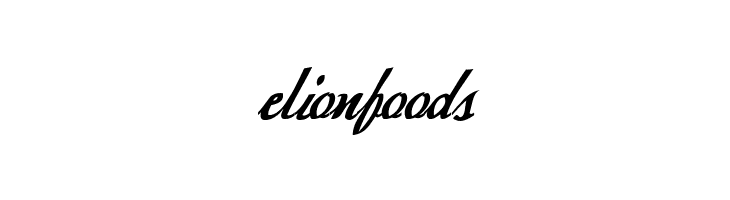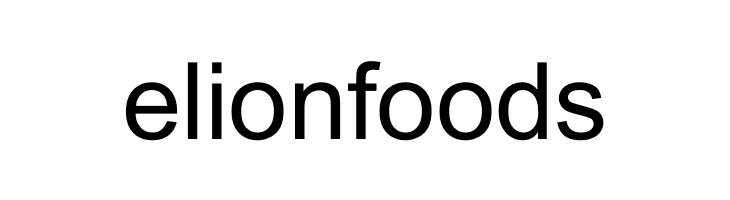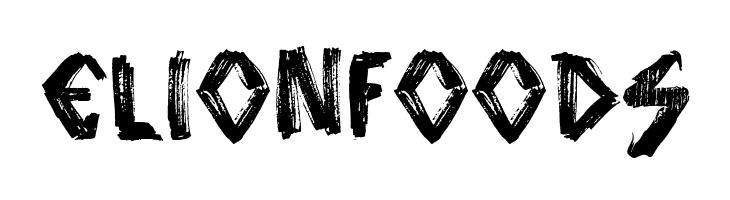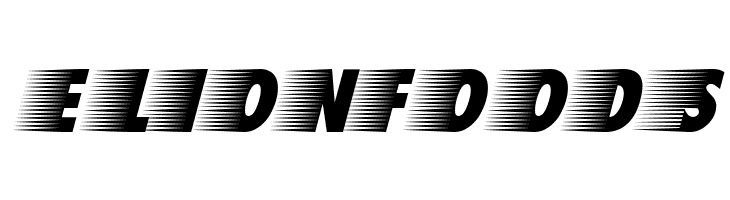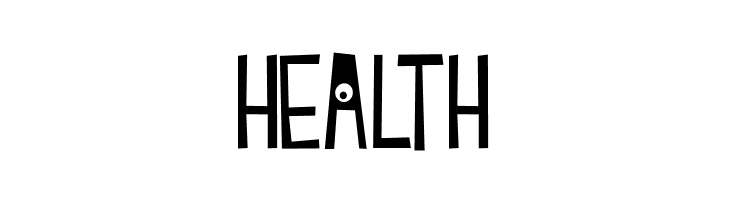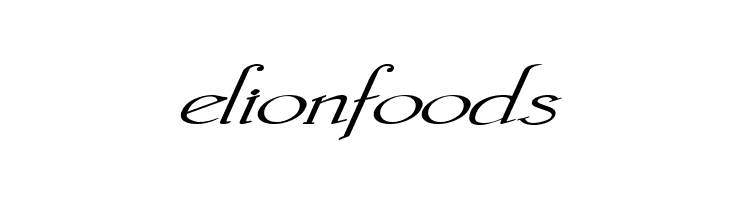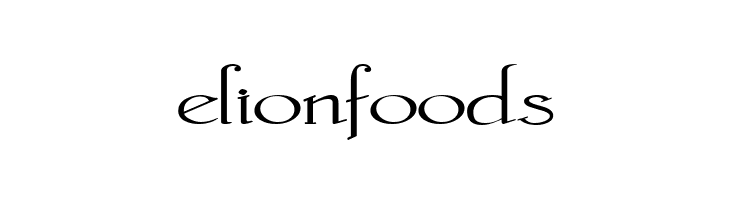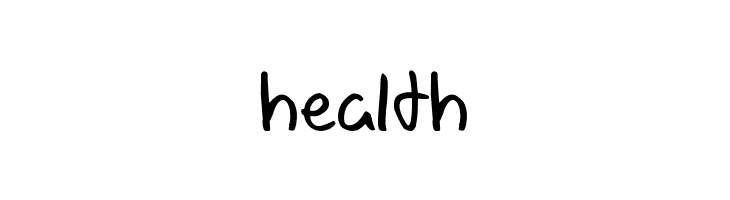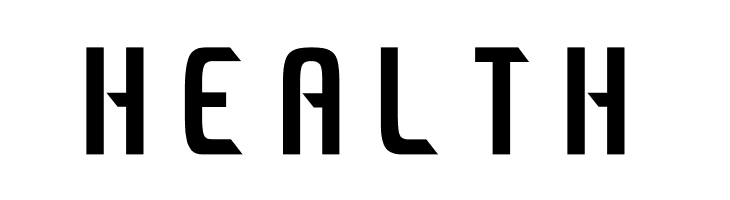
Museo-700 Font
A modern, bold font with a clean and professional appearance.
Jellyka Castle's Queen Font
An ornate, whimsical font with intricate swirls and flourishes.
Sony Sketch EF Font
A modern, geometric sans-serif font with clean lines and a slightly condensed style.
Jellyka, End_less Voyage Font
An ornate and decorative script font with elaborate swirls and curves.
Alvi Nastaleeq Font
A clean, modern sans-serif font with consistent stroke width and balanced spacing.
BreezedCaps BoldOblique Font
A bold, oblique font with a dynamic striped design.
Universe Font
A modern, geometric font with a futuristic and precise design.
green piloww Font
A playful, sketch-like font with a hand-drawn appearance and textured strokes.
FFF Tusj Bold Font
A bold, hand-drawn font with a sketch-like, artistic style.
Theano Didot Regular Font
An elegant serif font with high contrast and refined serifs.
Quicksand Light Regular Font
A modern, light, and geometric sans-serif font with rounded characters.
BPreplay-Bold Font
A bold, rounded font with smooth curves and even spacing.
AG Stencil Font
A bold, geometric stencil font with rounded edges and uniform weight.
GHW Dukandar Font
A fluid, handwritten script font with elegant curves and varying stroke thickness.
360 Font
A modern, geometric font with characters enclosed in circles, offering a futuristic look.
kitty sweety Font
A playful, heart-accented font with a hand-drawn, whimsical style.
Quicksand Bold Regular Font
A modern, rounded sans-serif font with a bold weight and clean lines.
MLS 2008 Font
A modern, bold font with angular cuts and a futuristic style.
A bite Font
A bold, distressed font with a grunge aesthetic, perfect for edgy designs.
Edo SZ Font